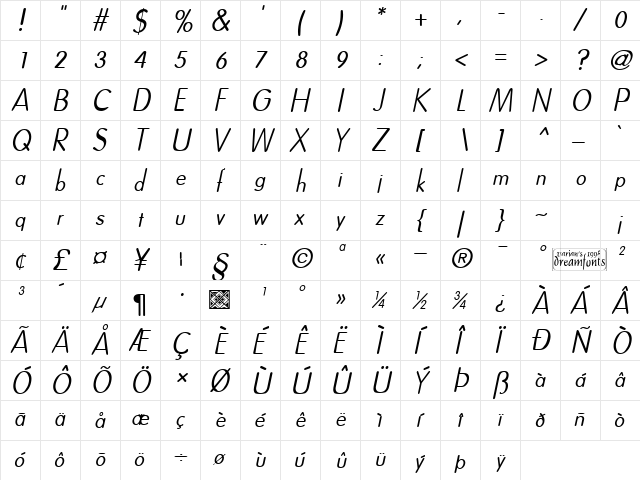
Dreamspeak Italic
Design Context for Dreamspeak Typeface
Dreamspeak offers clean, dependable letterforms without strong stylistic allegiance, making it a practical choice for designers who need flexibility. Its italic angle brings a sense of urgency and motion to the letterforms.
Pro Tip: Try Dreamspeak for annotation and caption copy alongside an upright companion — the contrast in angle creates a dynamic but ordered typographic system.